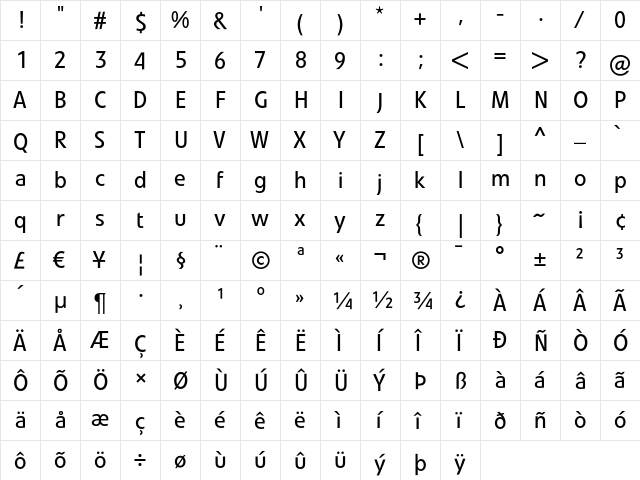
LinotypeVeto Regular
Design Context for LinotypeVeto Typeface
LinotypeVeto is a composed and adaptable typeface that performs quietly and consistently across a wide range of design contexts.